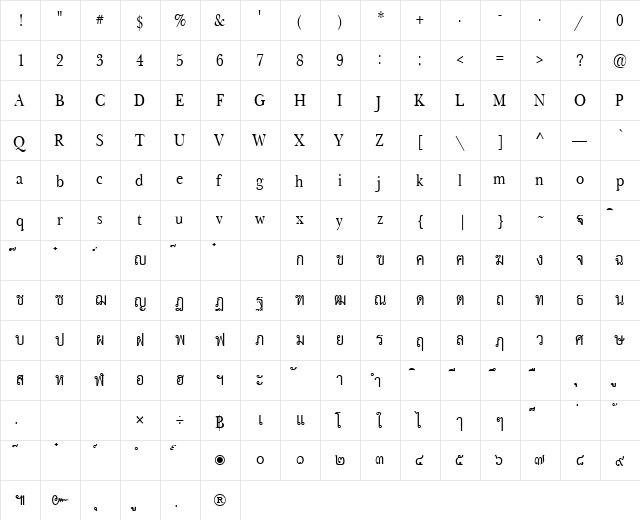
PSL-Irene Regular
Design Context for PSL-Irene Typeface
PSL-Irene offers clean, dependable letterforms without strong stylistic allegiance, making it a practical choice for designers who need flexibility.